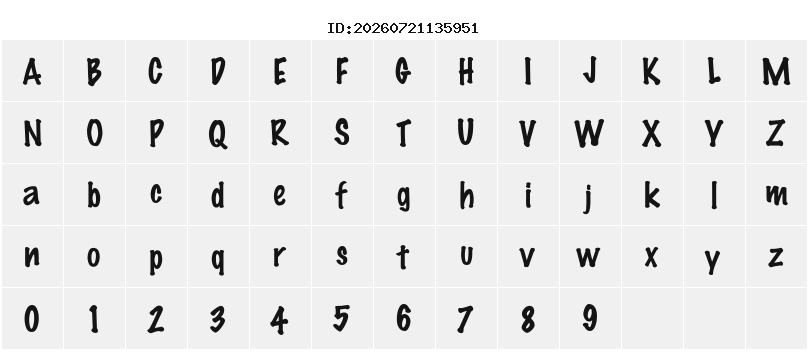
FeltTip Preview
• Font Name: FeltTip
• Full Font Name: FeltTip
• PostScript Name: FeltTip
About FeltTip.ttf
FeltTip.ttf is a modern, elegant sans-serif font designed for ultimate readability and visual harmony. Perfect for branding, headlines, web design, and print materials.